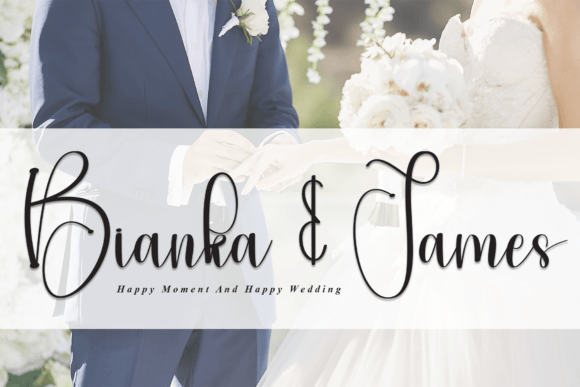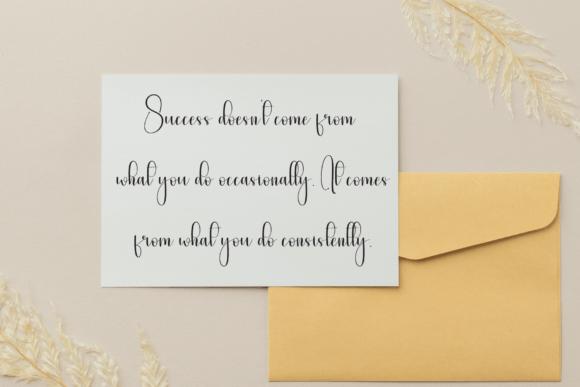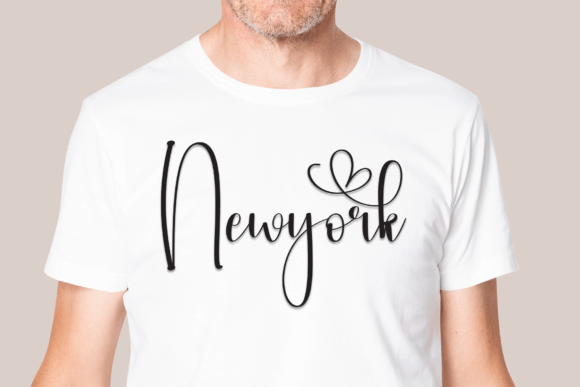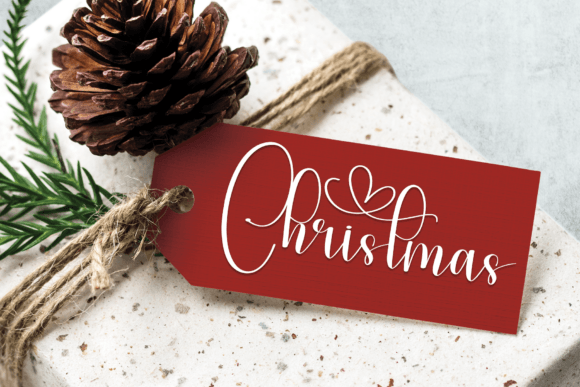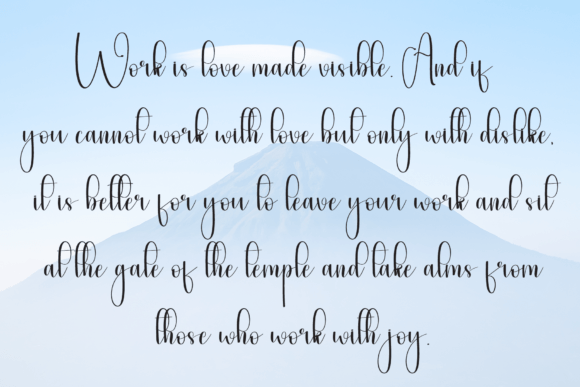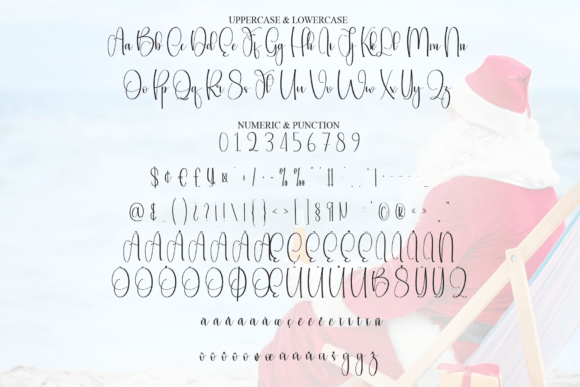
Introduction to Beach Santa Font
Unleash the charm of your creative projects with the adorable and warm handwritten display font, ideal for infusing an air of fun and sweetness.
Itโs perfect for adding that playful touch to wedding invitations, cards, or any design that requires a sprinkling of whimsy and delightfulness Experience the delightful blend of cuteness and fun with this handcrafted font, enhancing your artworkโs appeal effortlessly.